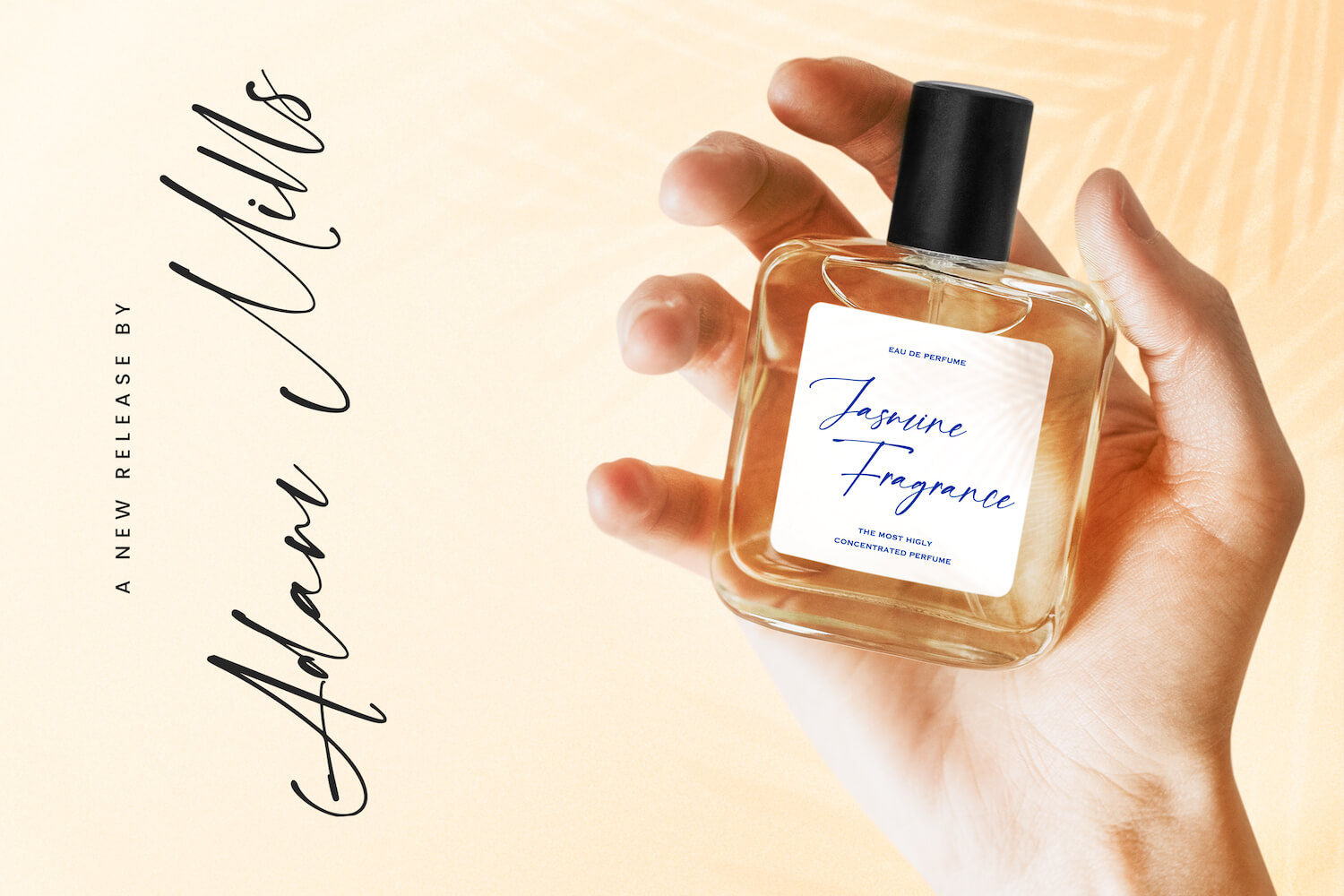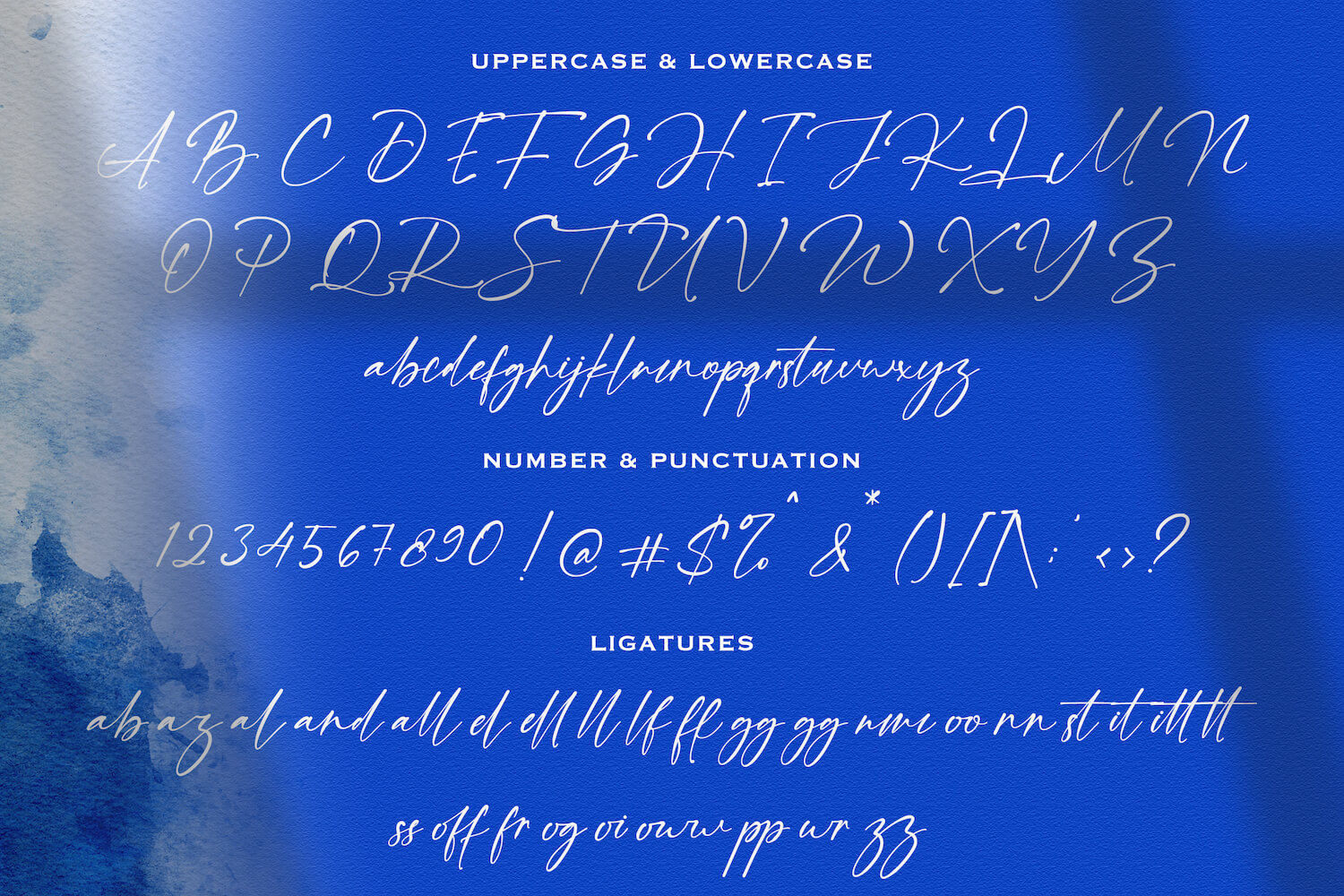
Franky Rain Signature Script Font is an elegant, free-flowing script typeface designed to evoke the sophistication of a personal signature. Its thin, graceful strokes and natural brush rhythm make it ideal for high-end branding, product packaging, and modern business cards. Whether you’re designing a logo for a boutique, labeling a perfume bottle, or crafting a stylish invitation, Franky Rain offers a refined yet approachable touch.
This font stands out with its delicate ligatures, smooth transitions between letters, and an organic balance between uppercase flair and lowercase fluidity. It brings a sense of authenticity and warmth, making it perfect for beauty brands, fashion labels, or artists looking to leave a lasting impression. The Franky Rain Signature Script Font also performs beautifully in social media posts, editorial titles, and any design that calls for elegance with personality. Its versatility ensures your words feel handwritten, heartfelt, and unforgettable—no matter the context.